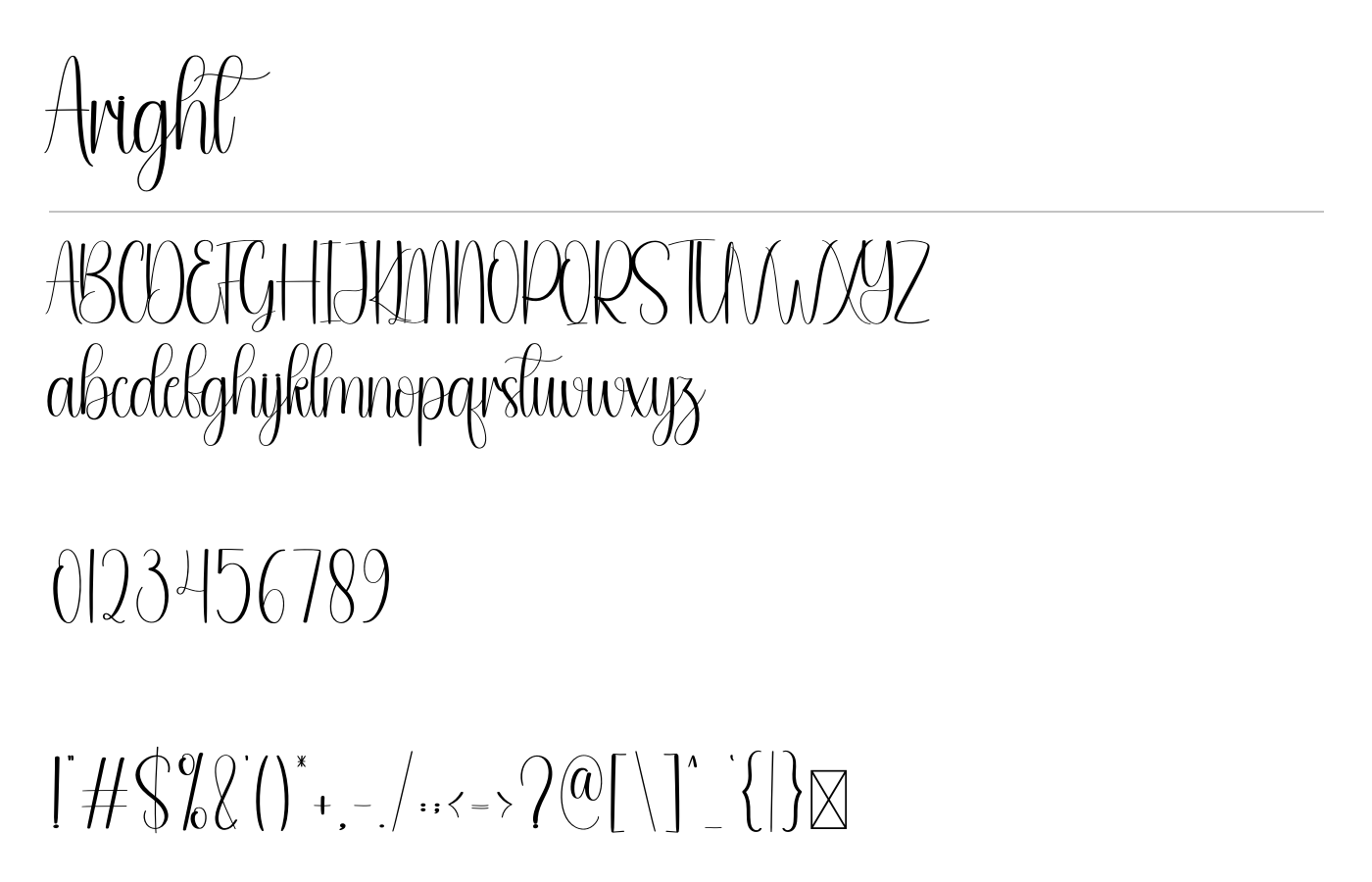
Aright is a delicate, handwritten script font characterized by its tall, narrow letterforms and elegant, flowing strokes. Its thin, graceful lines with slight flourishes convey a refined and artistic feel, making it ideal for feminine branding, invitations, and creative projects that require a sophisticated yet personal touch. This font works best in headings or decorative text where its stylish curves can stand out and add a sense of charm and elegance.
Aright Font
About Aright Font